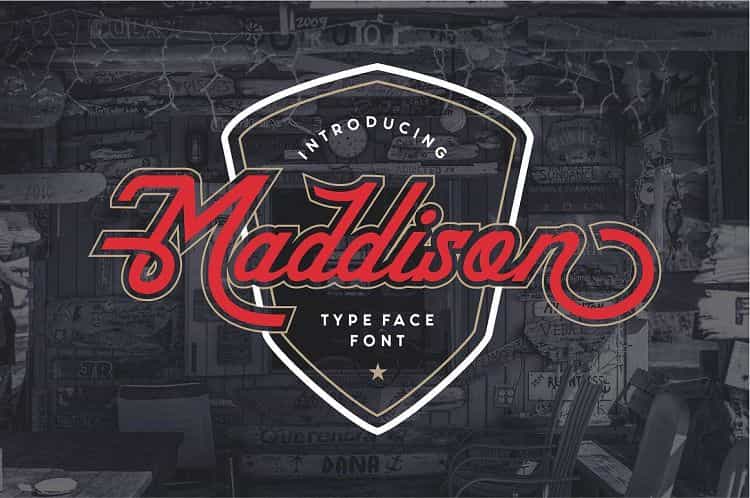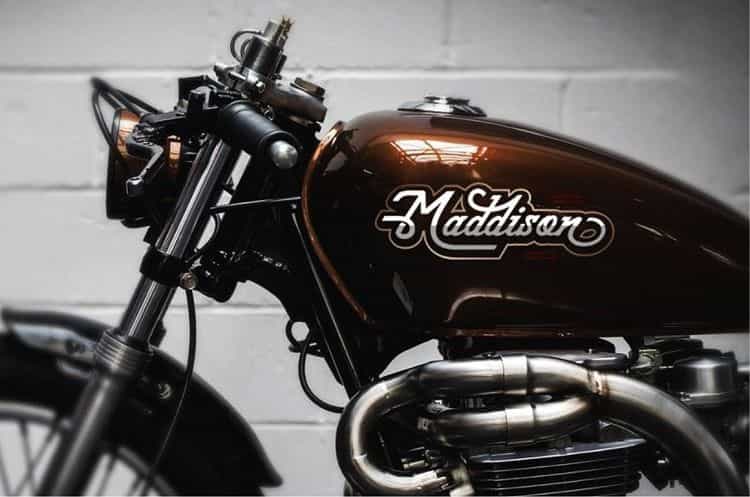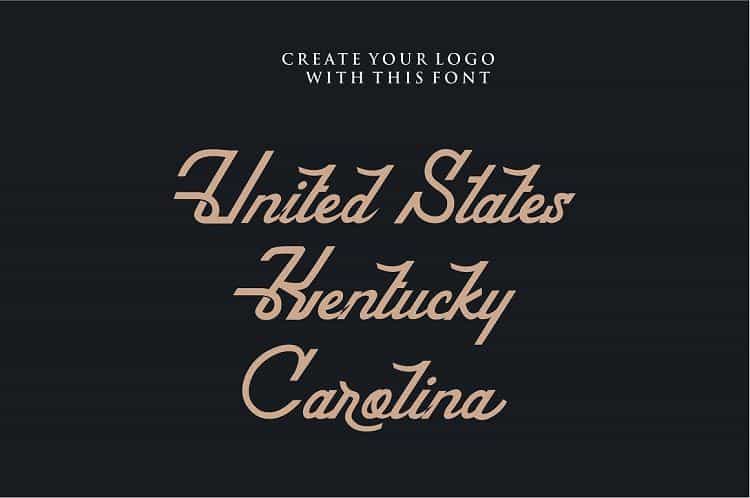
Introducing Maddison Font. Maddison fonts would be the best choice to create your brand, logo, name or anything you want. Maddison, though of a retro style, she looks modern. The fonts are perfect for the following: product logo, magazine content, automotive club, bar and cafe logo, clothing brand logo,,magazine poster,Vintage design etc.